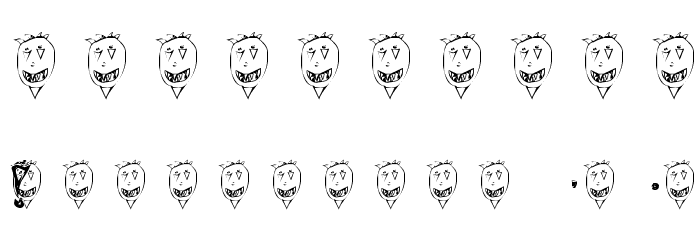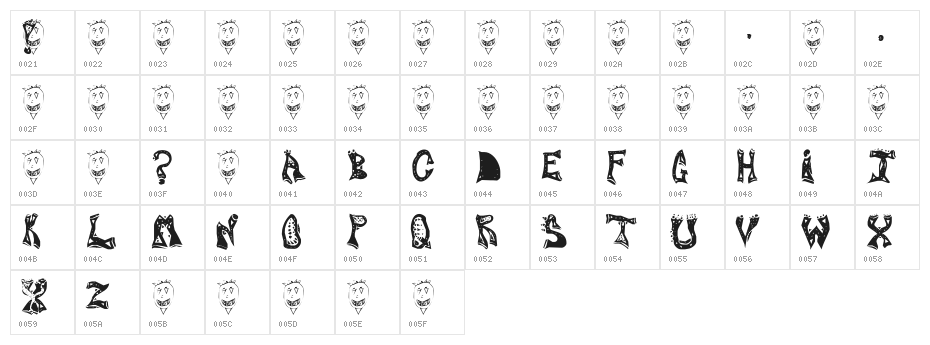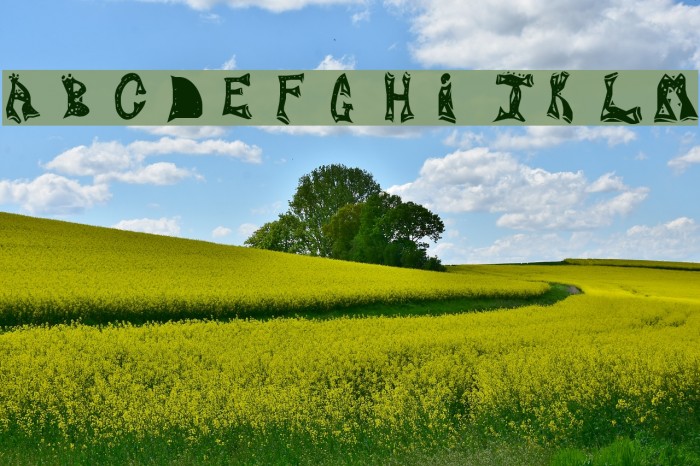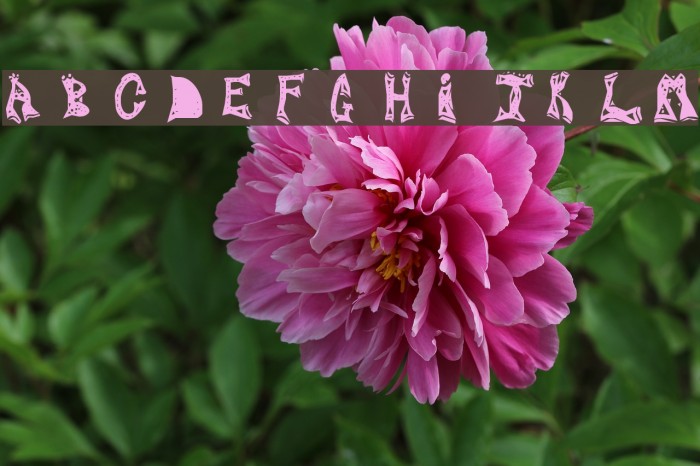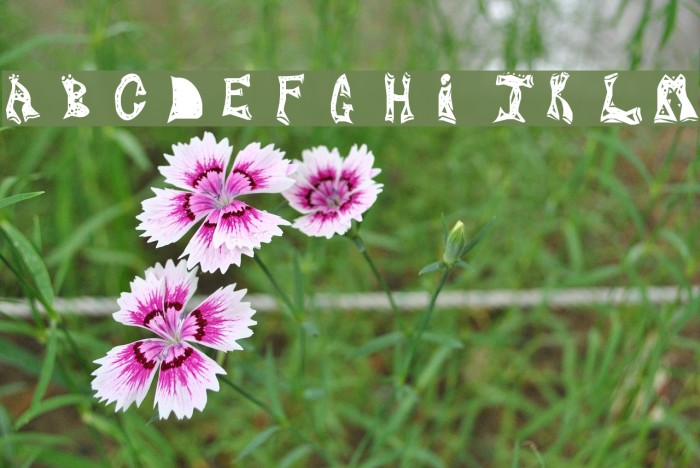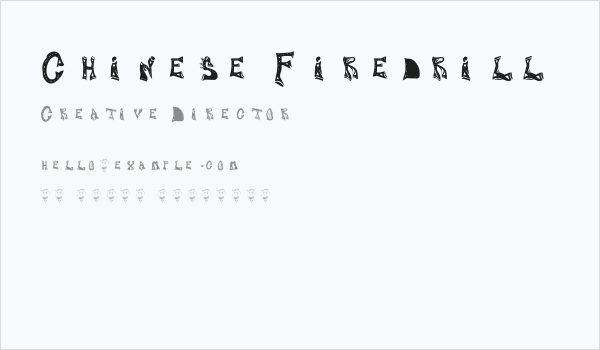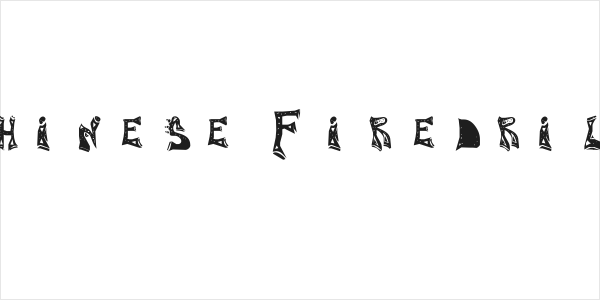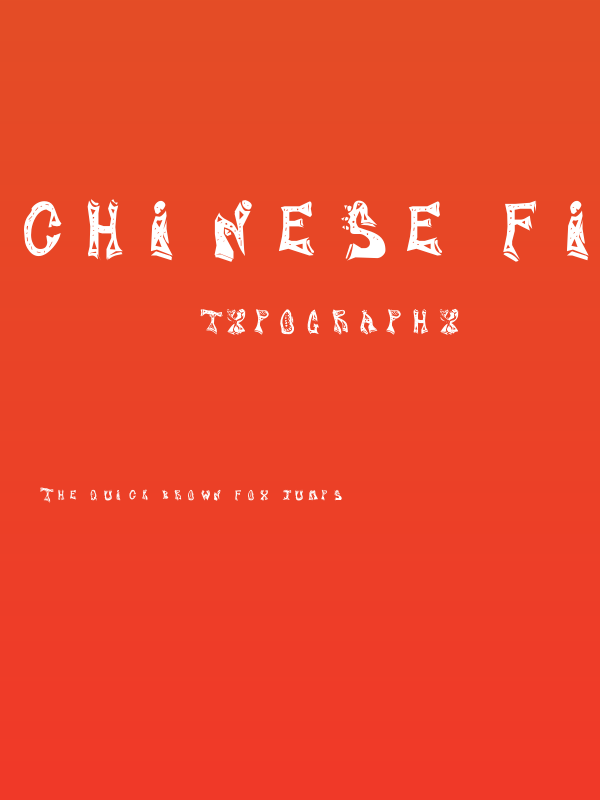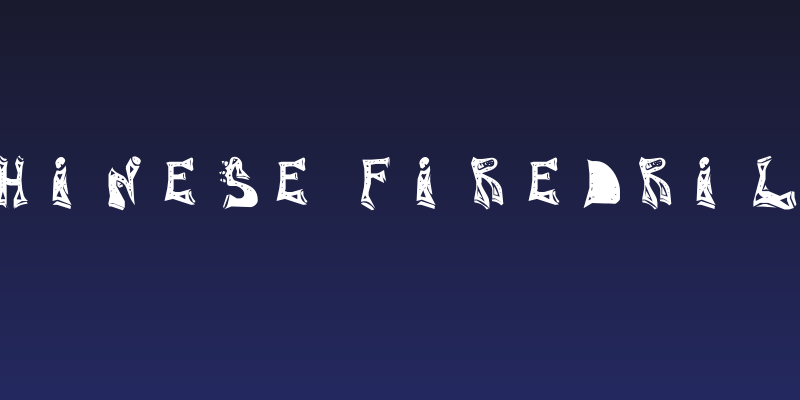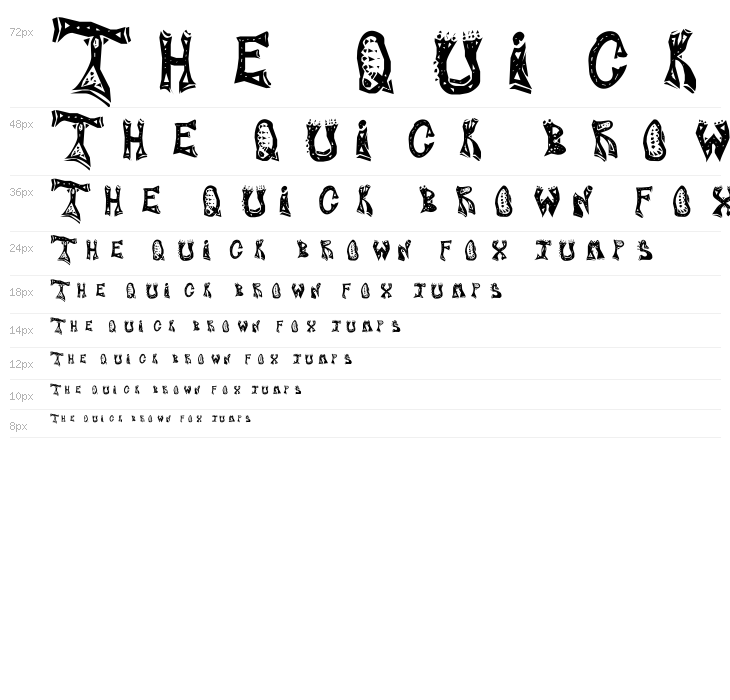
Chinese Firedrill Font
Chinese Firedrill Description
This font features a highly decorative and playful design, with each character incorporating unique and whimsical elements. The letters are bold and irregular, with varying shapes and embellishments that give them a dynamic and artistic appearance. The style is reminiscent of a hand-drawn or illustrated look, with intricate details and a sense of movement. The font includes both uppercase and lowercase letters, as well as numbers and a selection of special characters. The overall aesthetic is quirky and imaginative, making it suitable for creative and unconventional projects.